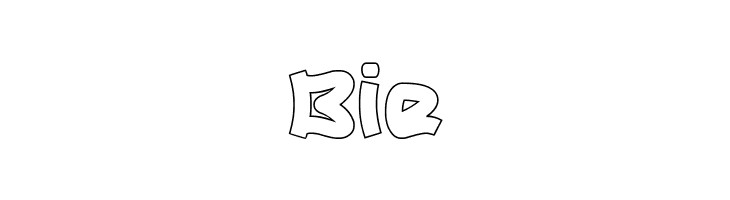
A bold, ornate blackletter font with medieval flair and intricate details.
An ornate Blackletter font with gothic and medieval influences.
An ornate, medieval-inspired decorative font with intricate floral designs.
Ornate Gothic-style initials with intricate patterns and flourishes.
A bold, playful font with heart-shaped cutouts in each character.
A playful, informal handwritten font with rounded, consistent strokes.
A playful, casual handwritten font with smooth, flowing lines.
A playful, geometric font with bold, rounded shapes and dynamic cutouts.
A modern, geometric font with bold, rounded shapes and playful elements.
A bold, geometric slab serif font with a modern, structured appearance.
A bold, geometric font with an industrial and modern aesthetic.
A bold, geometric font with a structured, architectural style.
A geometric, technical display font with a blueprint-like design.
A geometric and architectural font with a blueprint aesthetic, featuring only uppercase letters.
A playful, graffiti-inspired outline font with a bold and artistic style.
A geometric and angular font with a modern, edgy style.
A geometric and artistic font with sharp angles and modern elements.
A bold, graffiti-inspired font with rough, brush-like strokes.
A bold, graffiti-inspired font with sharp, angular lines and dynamic curves.
A bold, graffiti-inspired font with dynamic, angular lines and a street art vibe.
Bold, angular graffiti-inspired font with a dynamic urban style.
A bold, graffiti-inspired font with sharp angles and dynamic forms.
A dynamic oblique-italic font with sharp angles and elongated forms.
An artistic, sketch-like font with overlapping lines and curves.
A sleek, modern italic font with thin, elongated characters.
A sleek, minimalistic font with thin, elongated characters for a modern look.
A playful, handwritten font with a whimsical and casual style.
A bold, vintage-inspired serif font with strong, heavy strokes.
A bold, vintage-style font with a three-dimensional shaded effect.
A bold, vintage-style font with thick strokes and sharp angles.
A bold, decorative font with a retro, shaded 3D effect.
A classic serif font with high contrast and elegant curves.
A classic, elegant script font with flowing, connected letters.
A tall, narrow font with high contrast and angular serifs, perfect for dramatic designs.
A bold, modern font with geometric structure and rounded edges.